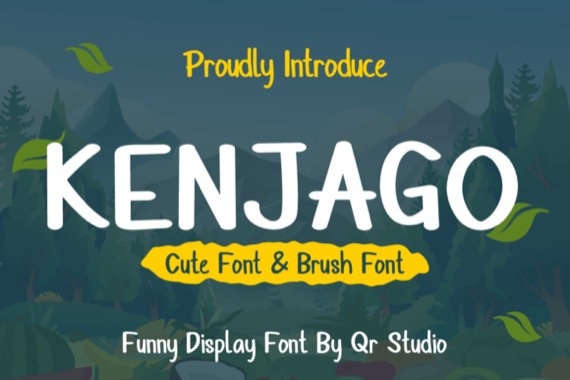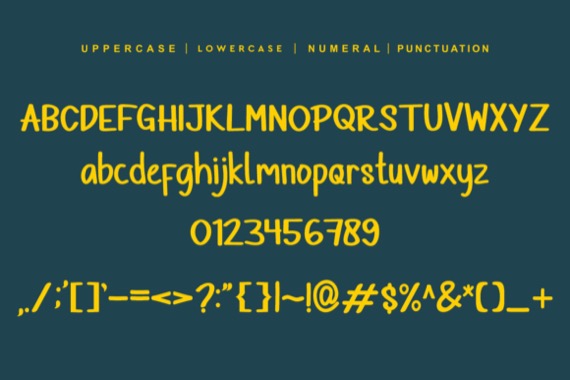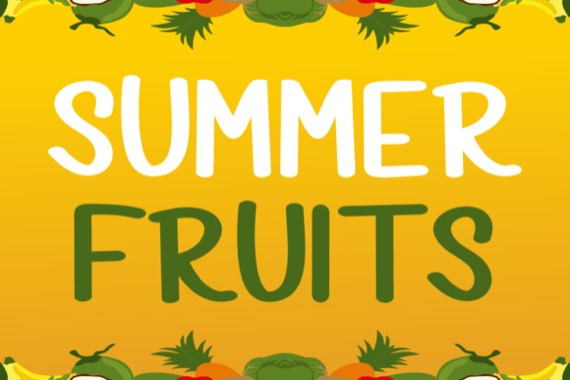
Kenjago is a sweet and friendly handwritten font that was created and released by Qrdesignstd. Its natural and unique look makes it incredibly fitting to a large pool of designs. The only limit is your imagination!
Kenjago Brush Handwritten Font